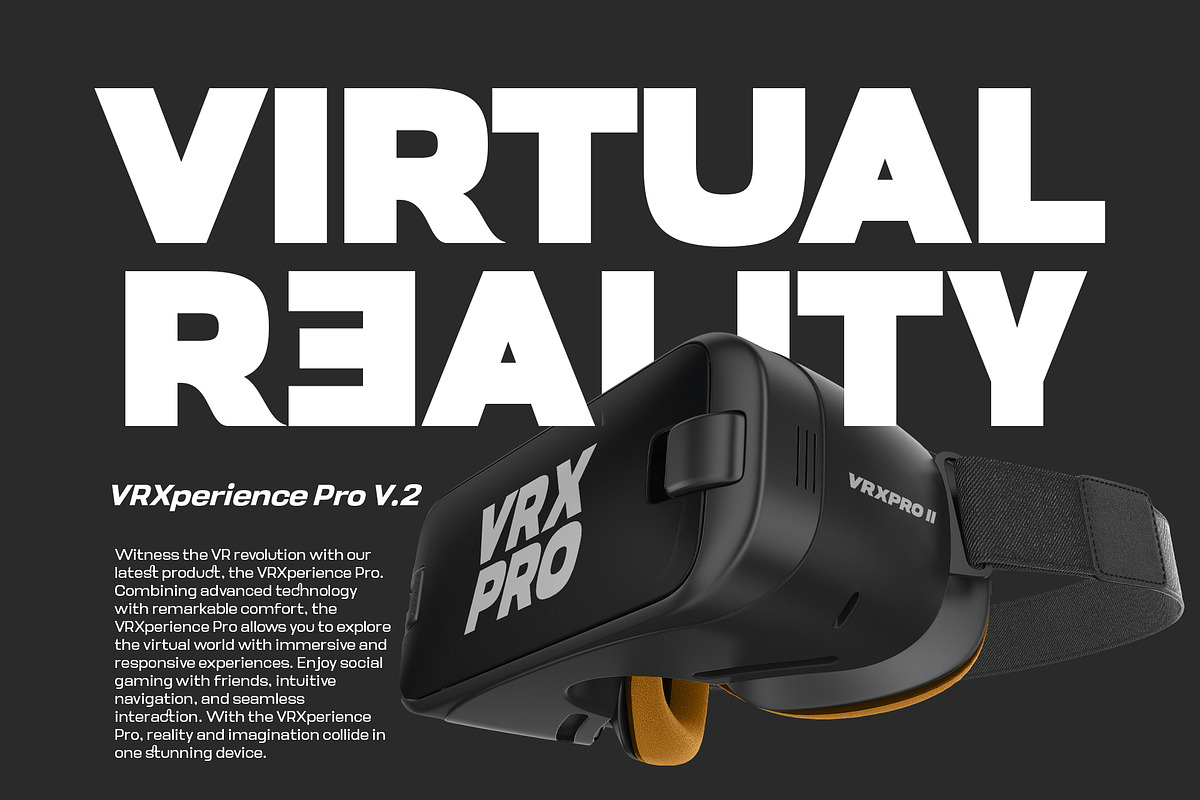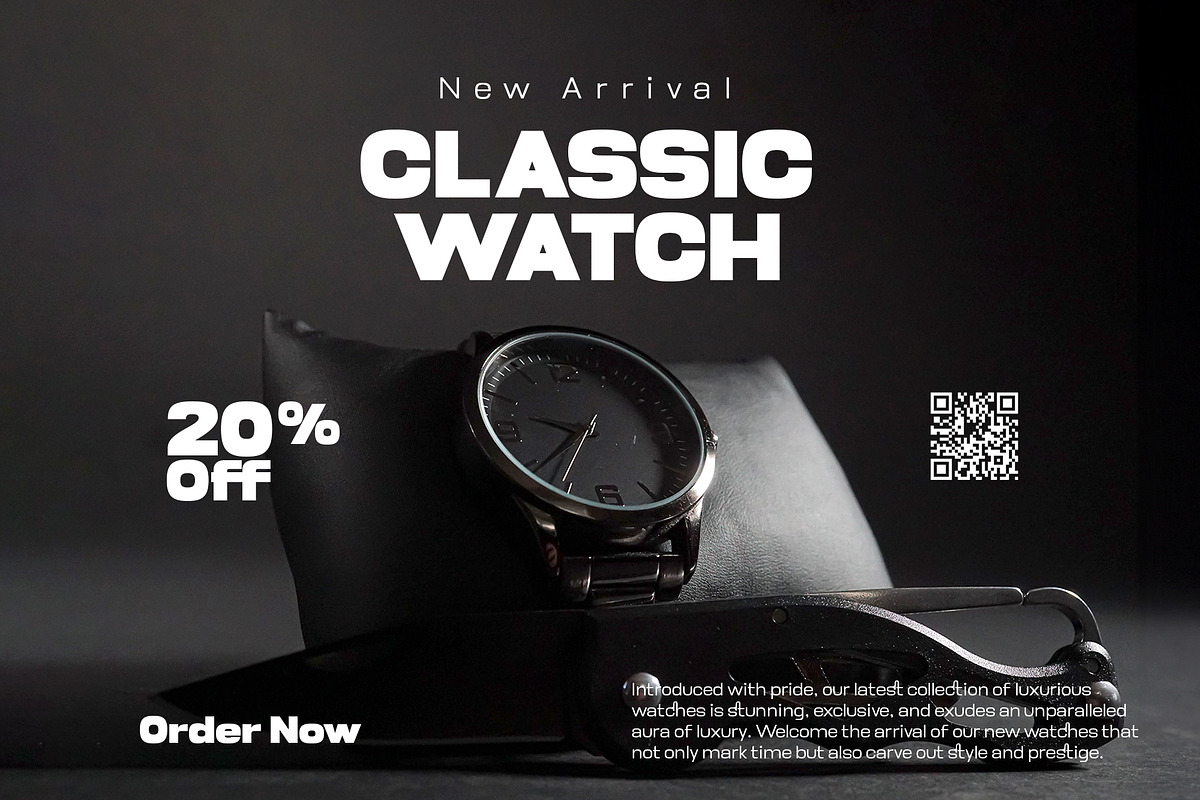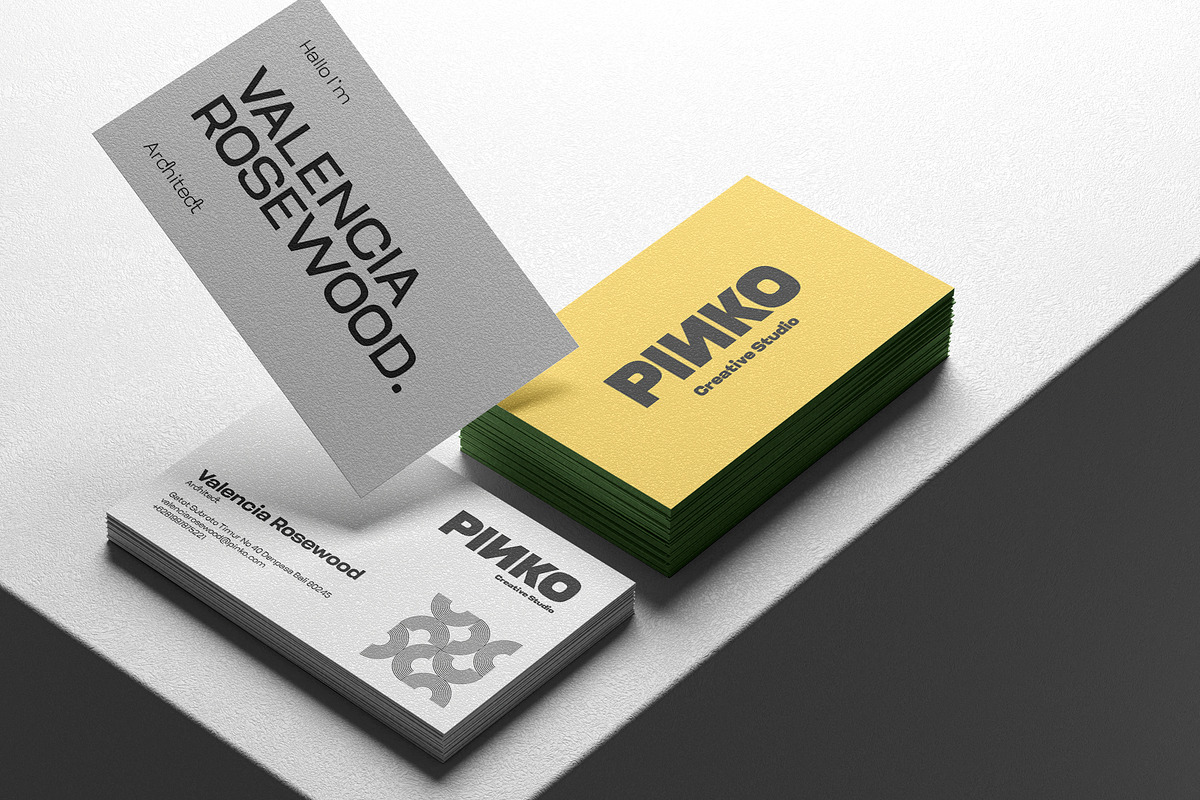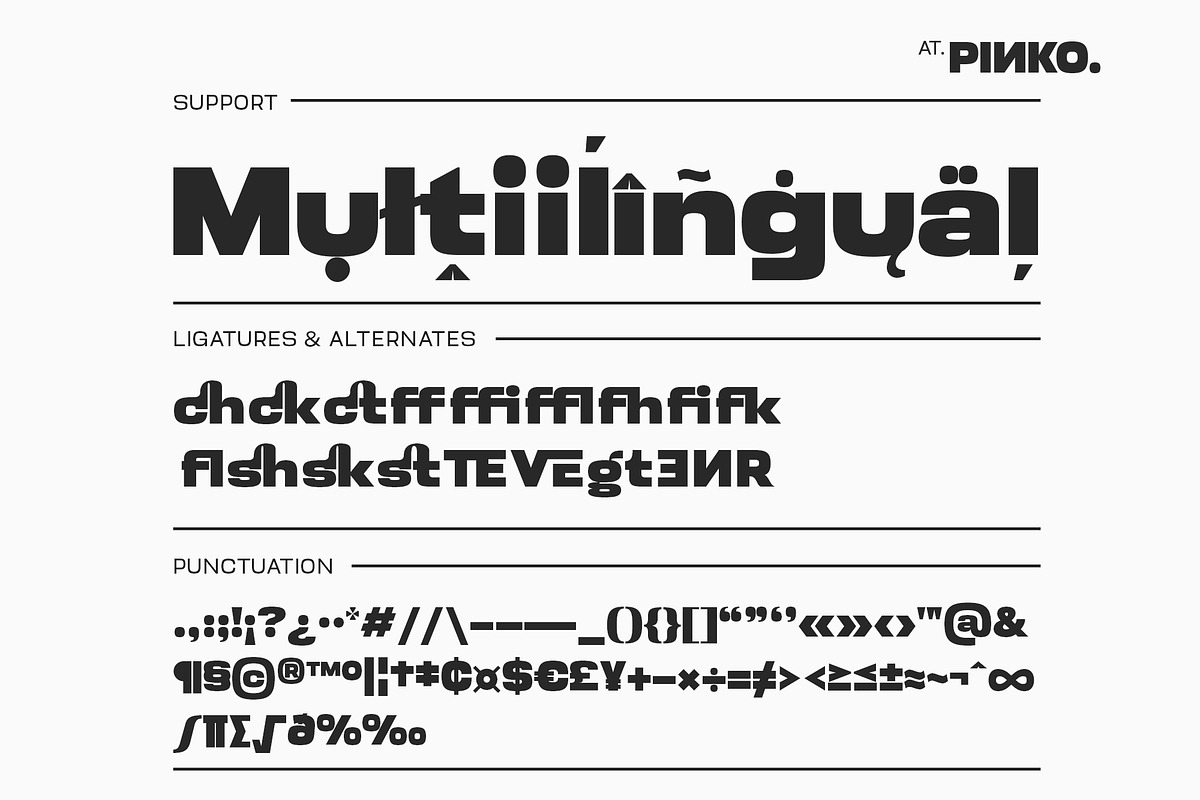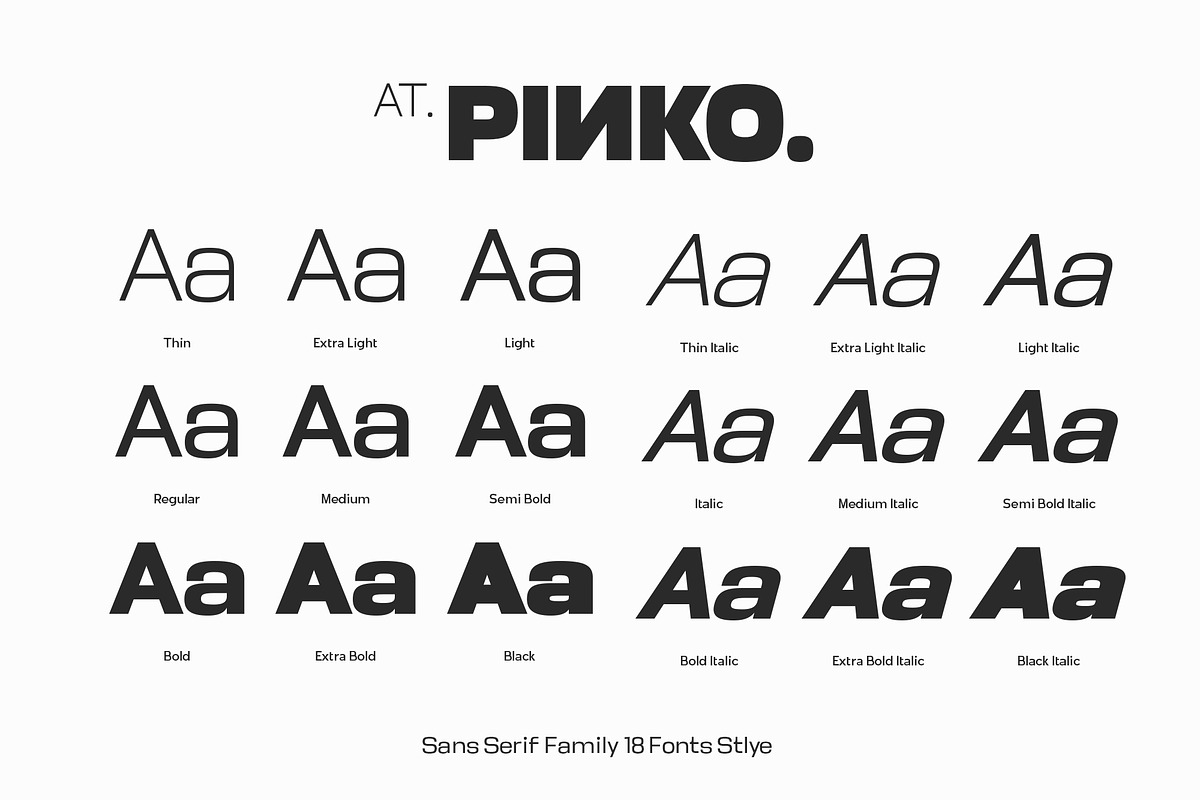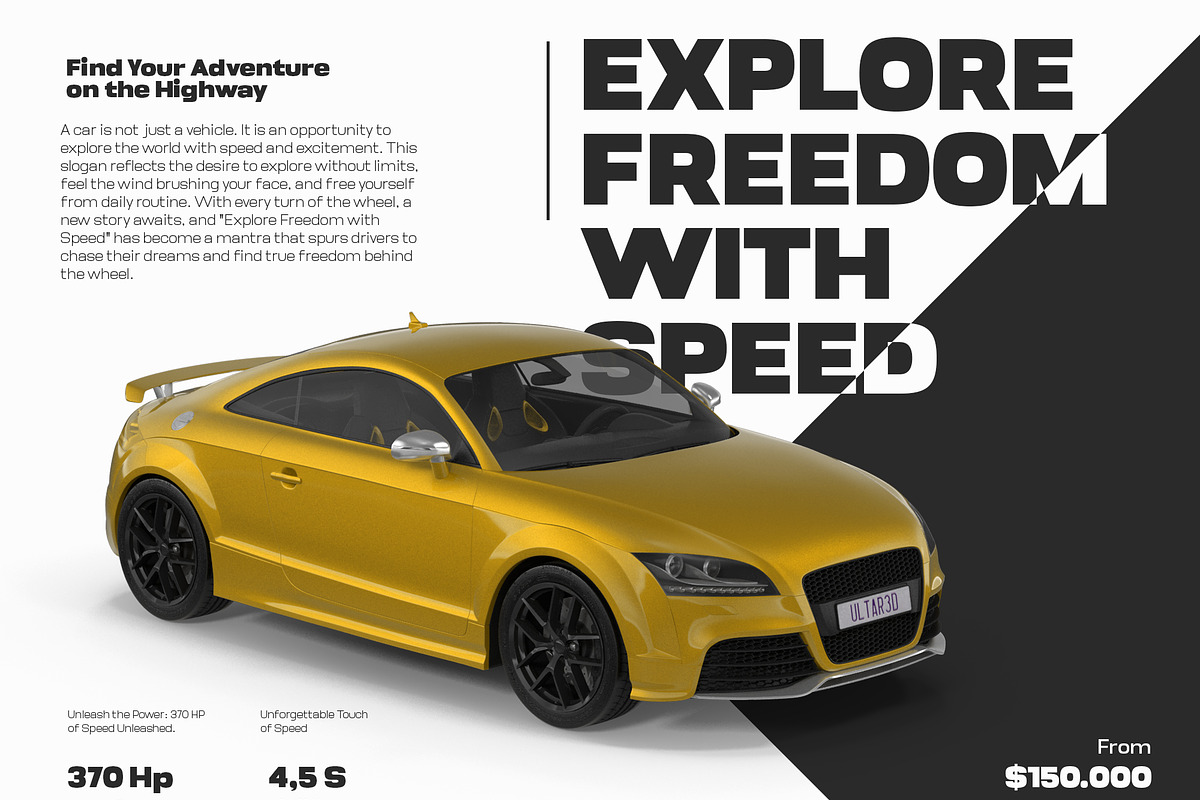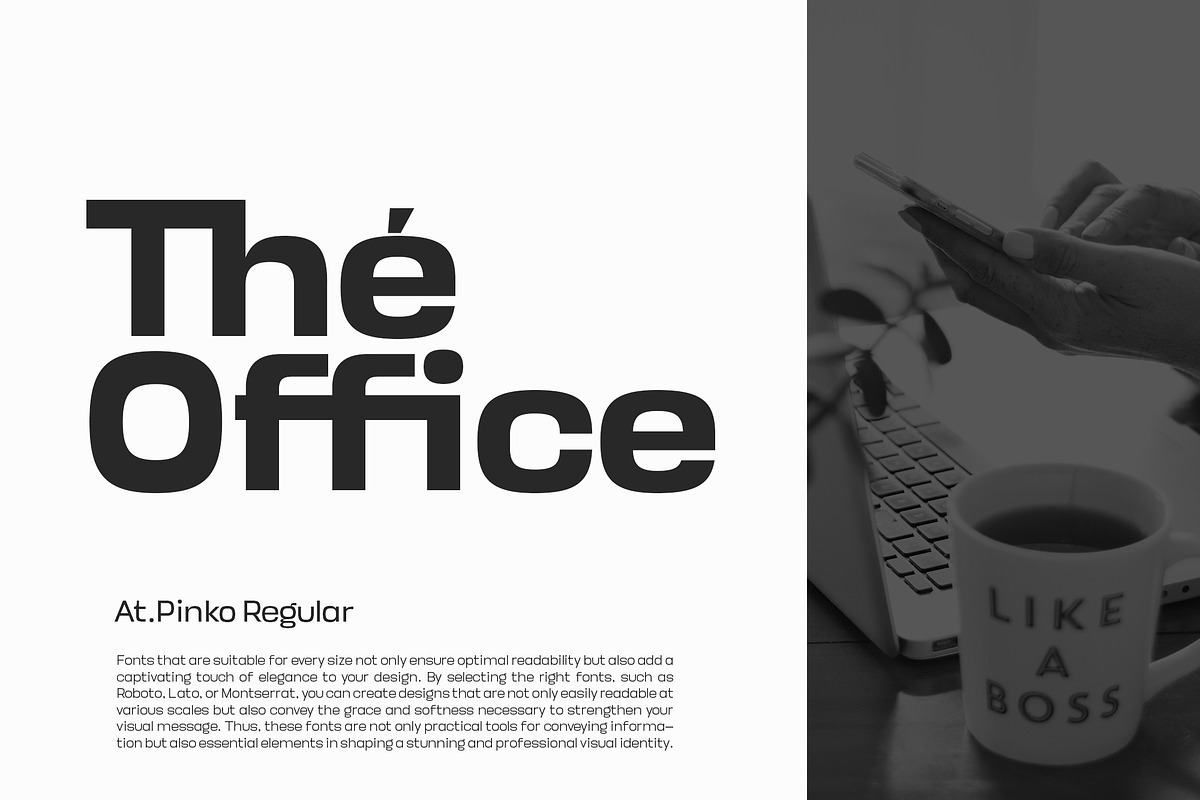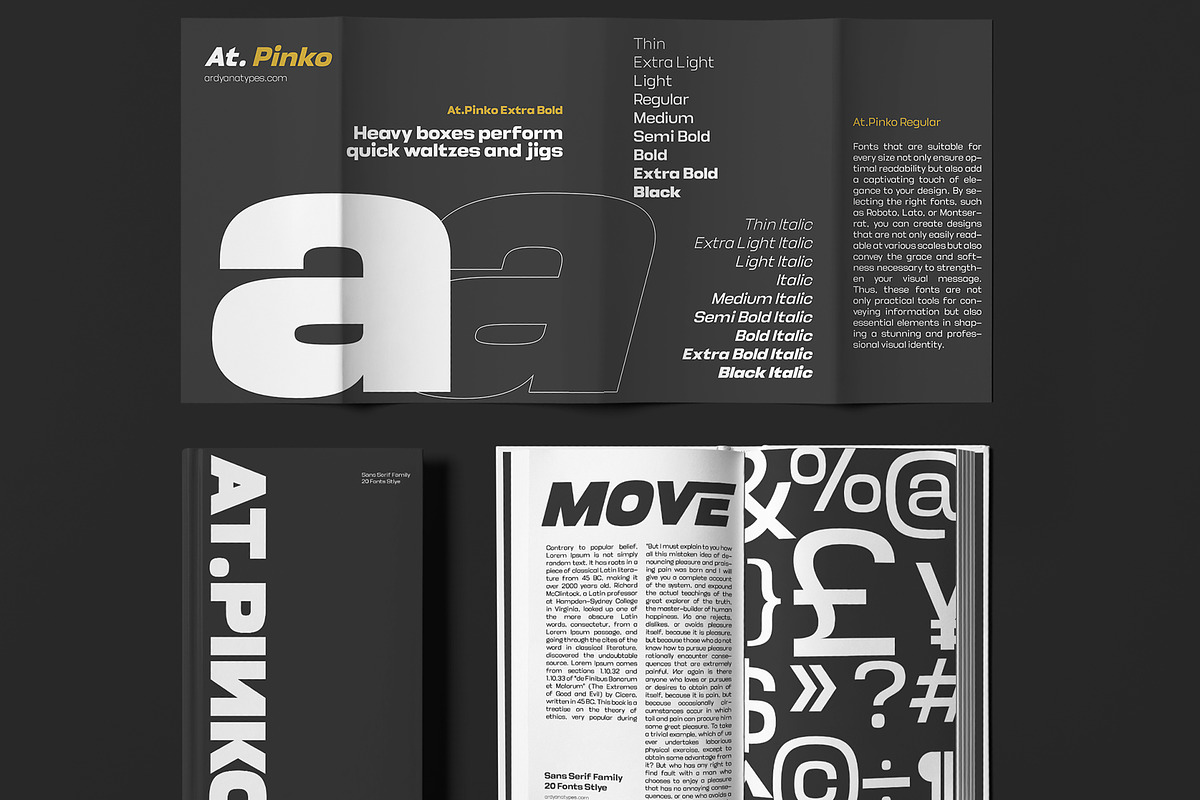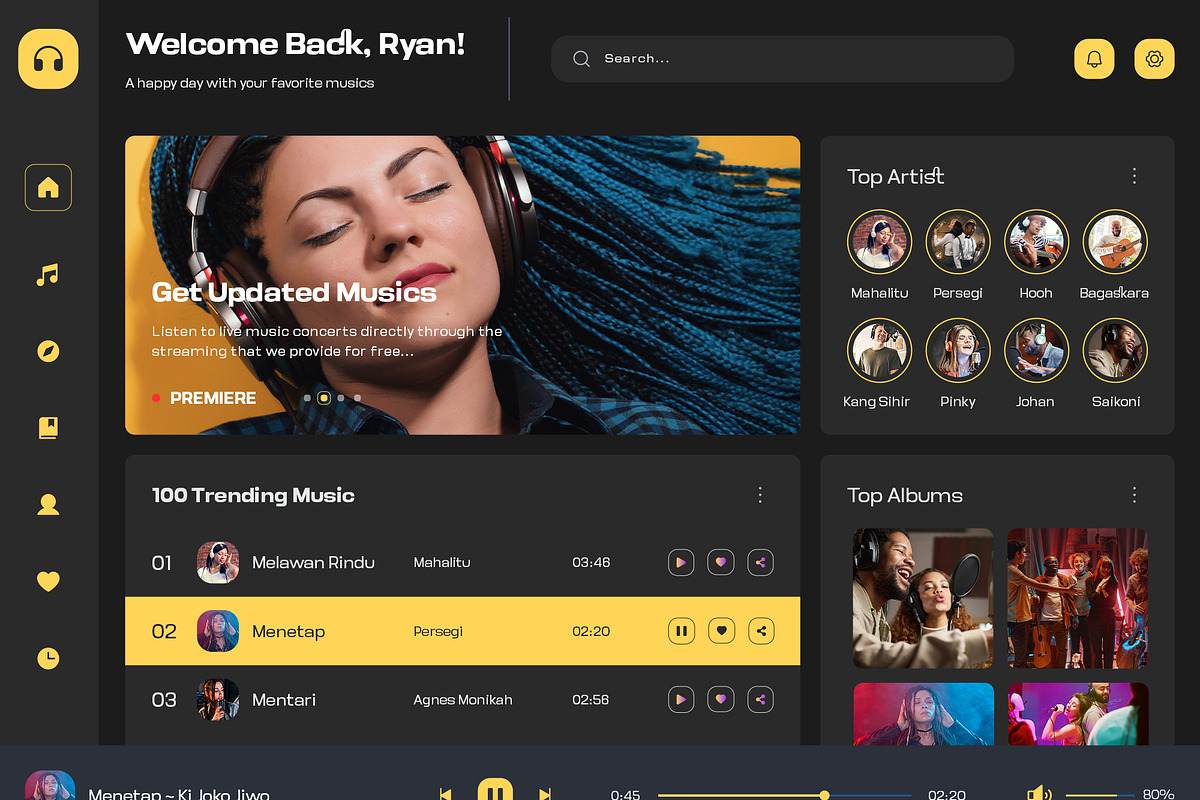
AT Pinko
AT Pinko answers every designer who desires clarity, sophistication, and flexibility in one typographic package. As a modern sans serif font, AT Pinko offers boldness and clarity that makes each displayed word easy to read and stands out with significant visual power. The main strength of AT Pinko lies in its collection of 18 style variants covering the spectrum from Thin to Black, both in regular and italic forms. This diversity makes AT Pinko very versatile and able to adapt seamlessly to primary and supporting texts.
AT Pinko's firmness is very suitable for design titles that require a strong and bold impact, such as posters, films, business cards, product designs and website interfaces. Each letter is designed with precision, ensuring that each character is aesthetically pleasing and functional.
Equipped with advanced OpenType features, AT Pinko allows designers to utilize a variety of alternative letter styles, ligatures, and other typographic features that can enhance the visual appeal of text. This capability opens up broader creative opportunities, allowing designers to express messages more effectively and interestingly.
AT Pinko's multilingual capabilities also add value for global use, supporting multiple languages and making communication more accessible internationally. The presence of AT Pinko in your font collection adds not just quantity but substantial quality to your typography choices.
With all these advantages, AT Pinko is not just an option—it's a must for designers who want to push the boundaries of their design with bold, modern, and multi-purpose typefaces. AT Pinko is a symbol of typographic excellence that will elevate your design projects' aesthetic to the next level.
A – Z Character Set
a – z Characters set
Numerals & Punctuations
Ligatures & Alternates